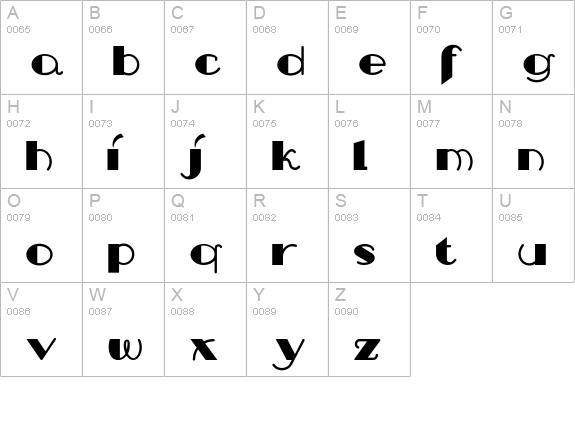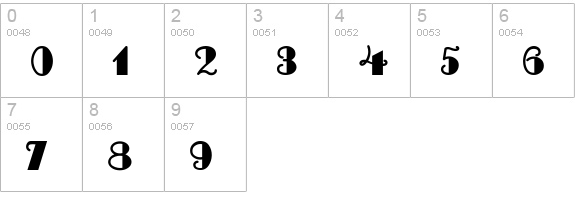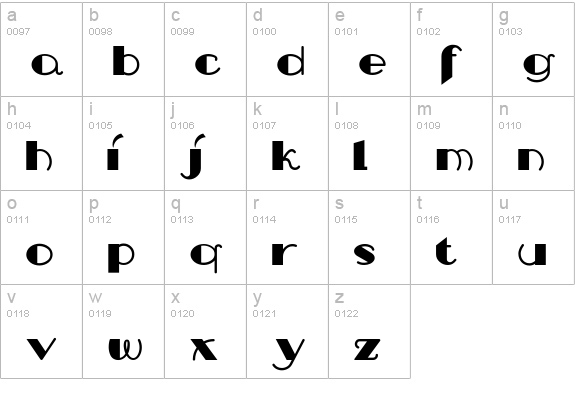
NipAndTuck Font Details
Introducing NipAndTuck font, a stylish and modern typeface perfect for adding a touch of elegance to your designs. This versatile font features clean lines and a sleek aesthetic that will make your projects stand out. With its unique character and sophisticated appeal, NipAndTuck font is sure to elevate any design project. Best of all, NipAndTuck font is available for free download at FontsMarket.com. Whether you're working on branding, invitations, posters, or any other creative project, this font will help you achieve a polished and professional look. Don't miss out on the opportunity to enhance your designs with this stunning typeface. Download NipAndTuck font today and unleash your creativity!